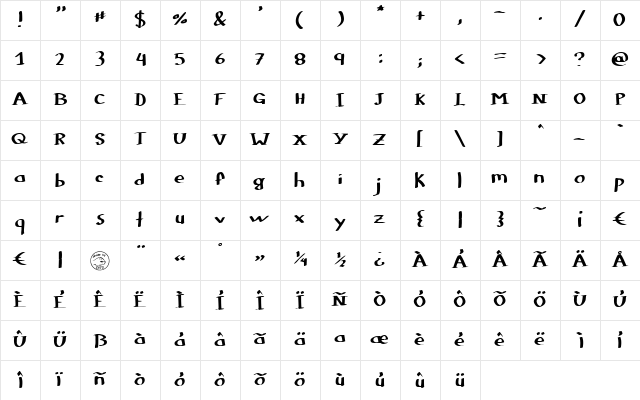
Colophon DBZ Regular
| Foundry | [Divide By Zero] Fonts |
| Designer | Tom Murphy 7 |
Design Context for Colophon DBZ Typeface
Colophon DBZ is a composed and adaptable typeface that performs quietly and consistently across a wide range of design contexts.